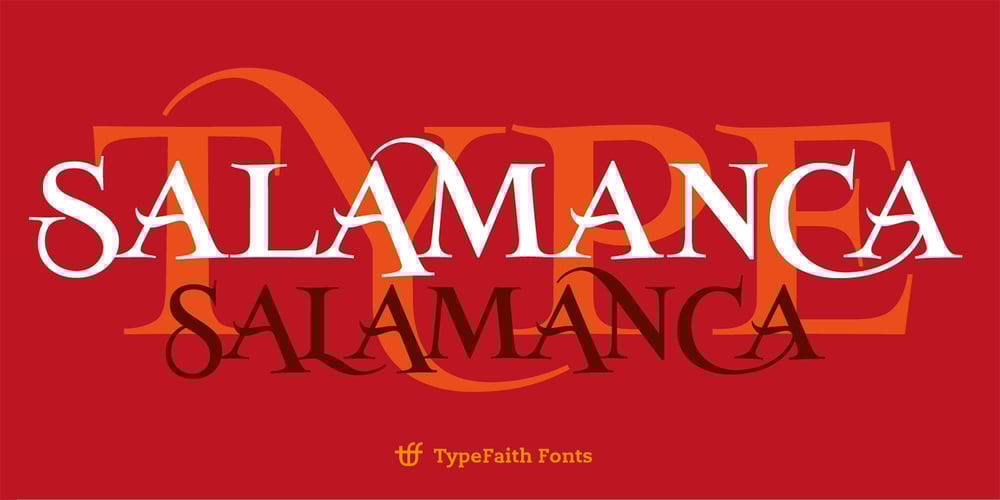
Salamanca TF Font Family was designed by Léon Hulst and published by TypeFaith Fonts. Salamanca TF contains 1 styles and family package options. Salamaca TF is a fun to use typeface. First released in 1994 but completely redesigned in 2013. With the OpenType options or the glyphs palette you make your own special typo’s. The font is based on the wall typography of the city of Salamanca.